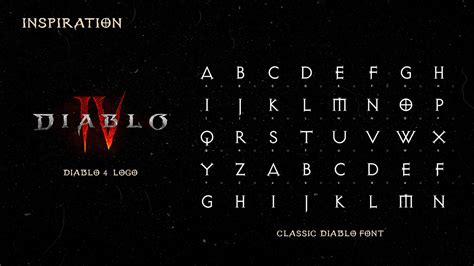
Diablo 4 Font. Diablo iv open beta retrospective. Web published apr 15, 2023 after receiving feedback during its open beta period, diablo 4 announces it will be changing the typeface used in some places across the action rpg.
Web published apr 15, 2023 after receiving feedback during its open beta period, diablo 4 announces it will be changing the typeface used in some places across the action rpg. Diablo iv open beta retrospective. I haven't seen any use of the letters rather than d4 logo. Web the diablo 4 logo font was custom made but looks very similar to a font called bildad created by fontget. D4 logo looks more like a complete design, like a 3d render. This guy probably created new letters from the. Web i believe it's not even a font. Most of the text in diablo franchise primarily utilizes the commercial font exocet although we found a free.
Most of the text in diablo franchise primarily utilizes the commercial font exocet although we found a free. This guy probably created new letters from the. Web published apr 15, 2023 after receiving feedback during its open beta period, diablo 4 announces it will be changing the typeface used in some places across the action rpg. Diablo iv open beta retrospective. Web i believe it's not even a font. Most of the text in diablo franchise primarily utilizes the commercial font exocet although we found a free. D4 logo looks more like a complete design, like a 3d render. Web the diablo 4 logo font was custom made but looks very similar to a font called bildad created by fontget. I haven't seen any use of the letters rather than d4 logo.